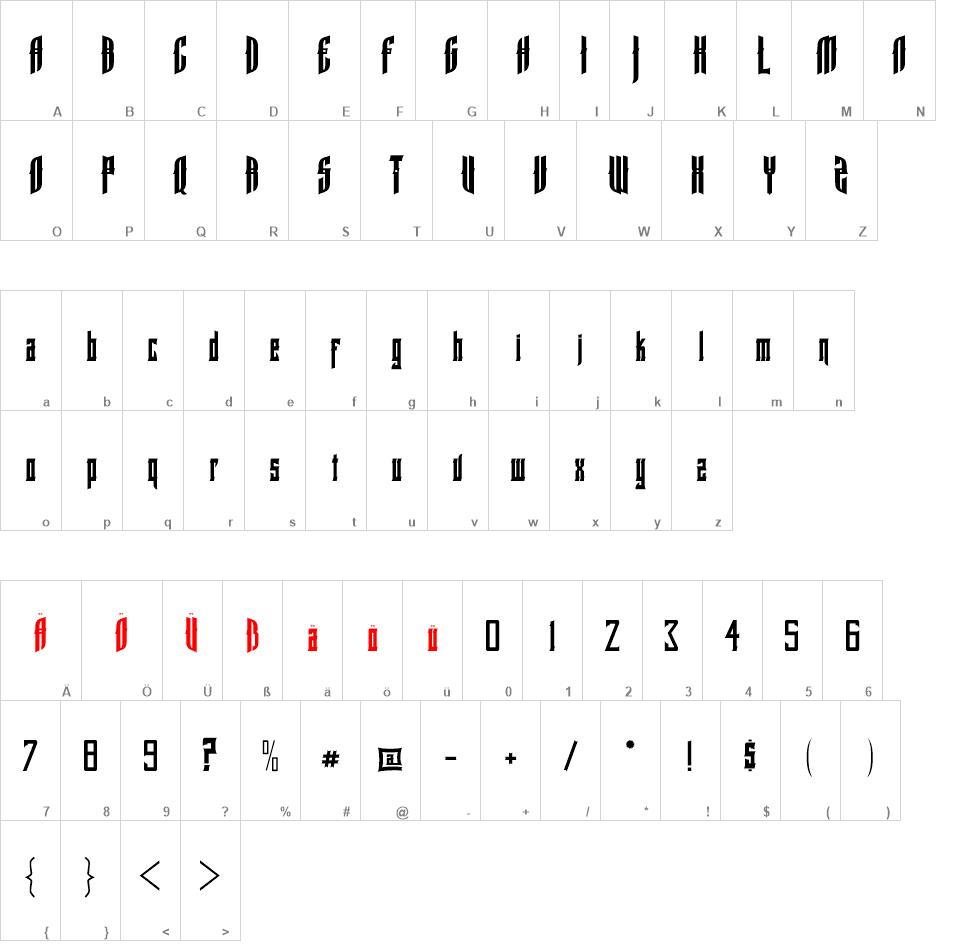
Spartanburg SC
Spartanburg SC font
SpartanburgSC is my second font. Inspired by the 1923 Sanborn Insurance Map cover for Spartanburg, South Carolina.
Included is limited language support, with a view to expanding this at a later date.